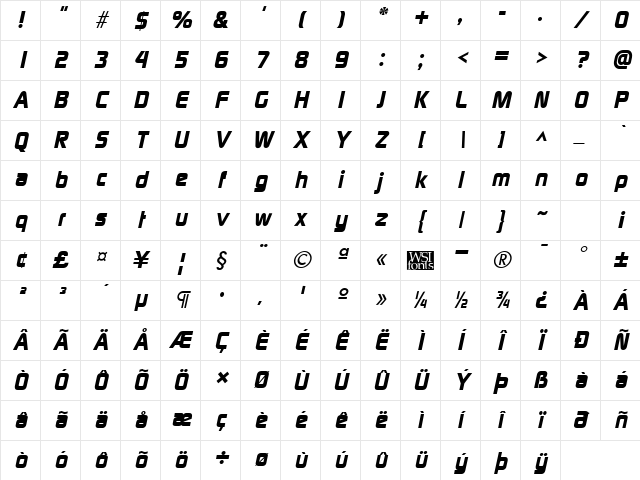
ModaerneHeavy Italic
ModaerneHeavy Family
ModaerneHeavy Italic
Design Context for ModaerneHeavy
ModaerneHeavy is a composed and adaptable typeface that performs quietly and consistently across a wide range of design contexts. The slanted form adds forward momentum and visual energy.
Pro Tip: Use ModaerneHeavy for emphasis, pull quotes, and subheadings where its slanted energy can add rhythm to the layout.